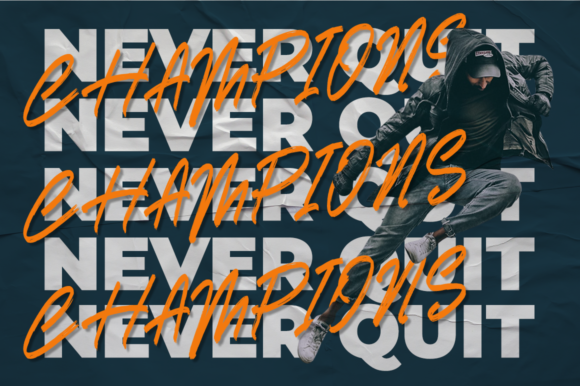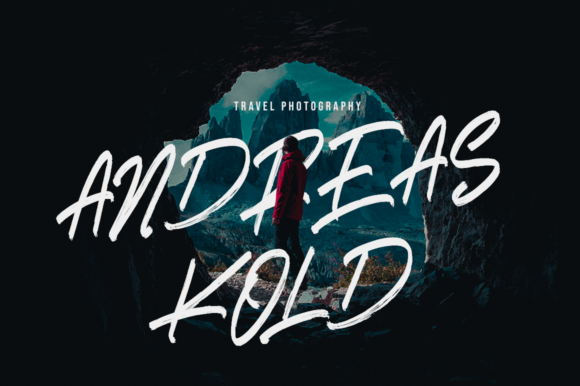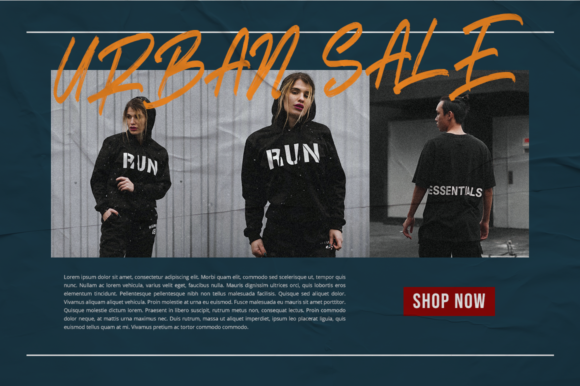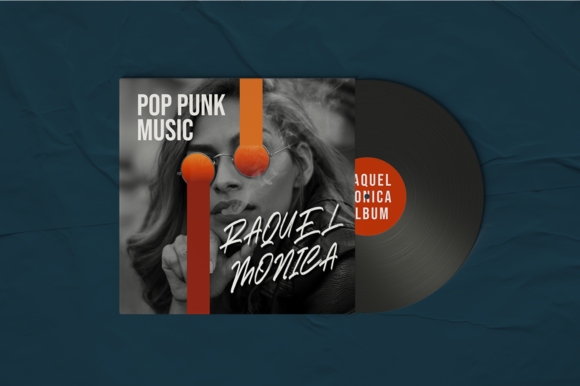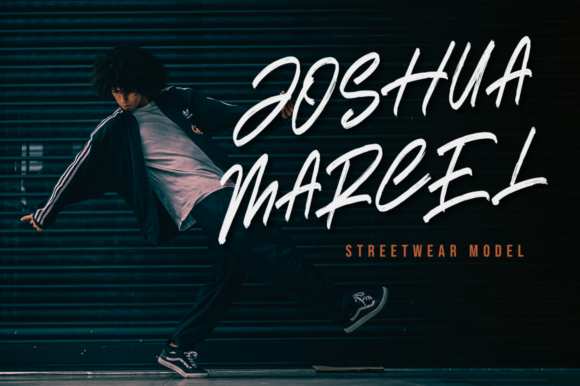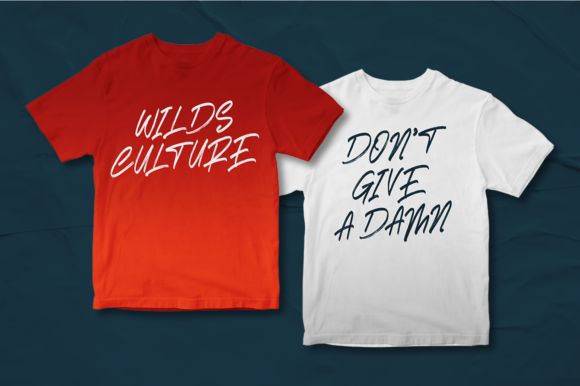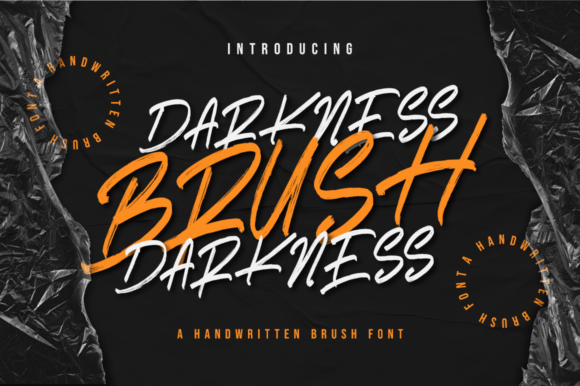
Unleash Your Creativity with Darkness Brush Font
Are you a designer or crafter looking for a font that can add a touch of urban grit to your projects? Look no further than the Darkness Brush Font. This modern brushed display font is incredibly adaptable to all sorts of urban or street-related designs, making it the perfect addition to your font collection.
What is Darkness Brush Font?
Darkness Brush Font is a unique and stylish font that is perfect for creating bold and eye-catching designs. With its brushed texture and modern feel, it’s ideal for designs that require a bit of an edge. Whether you’re working on a branding project, product packaging, or a poster, this font is sure to make your design stand out.
Features of Darkness Brush Font
• Modern Brushed Texture: The Darkness Brush Font features a modern brushed texture that gives it a unique and stylish feel.
• Incredibly Adaptable: This font is incredibly adaptable to all sorts of urban or street-related designs, making it perfect for a wide range of projects.
• Suitable for Various Projects: The Darkness Brush Font is suitable for any branding, product packaging, invitation, quote, t-shirt, label, poster, logo that you wish to create.
• Easily Readable: Despite its bold and edgy feel, the Darkness Brush Font is easily readable, making it perfect for designs that require a bit of text.
Uses of Darkness Brush Font
The Darkness Brush Font is a versatile font that can be used for a wide range of projects. Here are some ideas to get you started:
• Branding: Use the Darkness Brush Font to create bold and eye-catching logos that will make your brand stand out.
• Product Packaging: Add a touch of urban grit to your product packaging with the Darkness Brush Font.
• Invitations: Create unique and stylish invitations for events, parties, or weddings with the Darkness Brush Font.
• Quotes: Use the Darkness Brush Font to create inspiring and motivational quotes that will grab attention.
• T-Shirts: Design bold and stylish t-shirts with the Darkness Brush Font that will make a statement.
• Labels: Use the Darkness Brush Font to create stylish labels for products, files, or folders.
• Posters: Create eye-catching posters with the Darkness Brush Font that will grab attention.
• Logos: Use the Darkness Brush Font to create unique and stylish logos that will represent your brand.
Why Choose Darkness Brush Font?
There are many reasons why you should choose the Darkness Brush Font for your next project. Here are a few:
• Unique and Stylish: The Darkness Brush Font is a unique and stylish font that will add a touch of urban grit to your designs.
• Highly Versatile: This font is highly versatile and can be used for a wide range of projects.
• Easily Readable: Despite its bold and edgy feel, the Darkness Brush Font is easily readable.
• Supports Multiple Languages: The Darkness Brush Font supports multiple languages, making it perfect for international projects.
Tips for Using Darkness Brush Font
Here are some tips for using the Darkness Brush Font:
• Use it for Headlines: The Darkness Brush Font is perfect for headlines, titles, and captions.
• Experiment with Colors: Experiment with different colors to find the perfect combination for your design.
• Pair it with Other Fonts: Pair the Darkness Brush Font with other fonts to create a unique and stylish combination.
• Use it for Texture: Use the Darkness Brush Font to create texture and add depth to your design.
In conclusion, the Darkness Brush Font is a modern brushed display font that is incredibly adaptable to all sorts of urban or street-related designs. With its unique and stylish feel, it’s perfect for a wide range of projects, from branding and product packaging to invitations and posters. Whether you’re a designer or crafter, this font is sure to become a staple in your font collection.